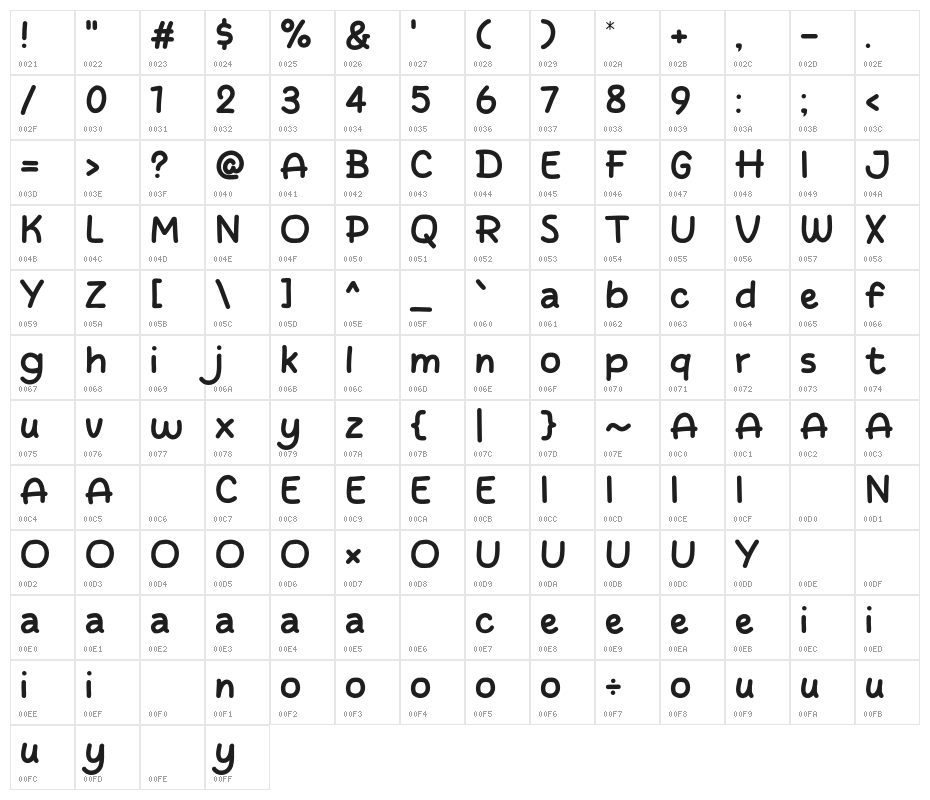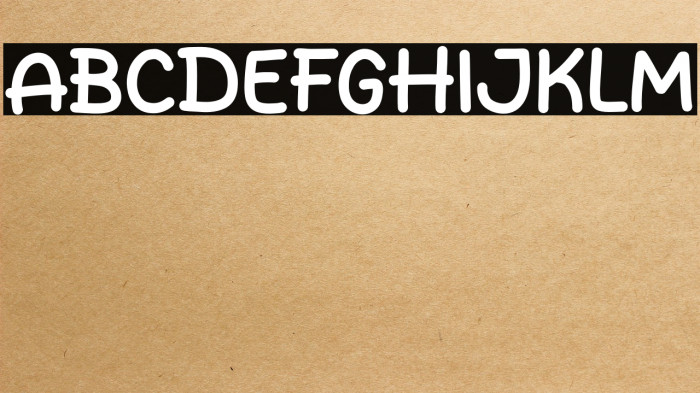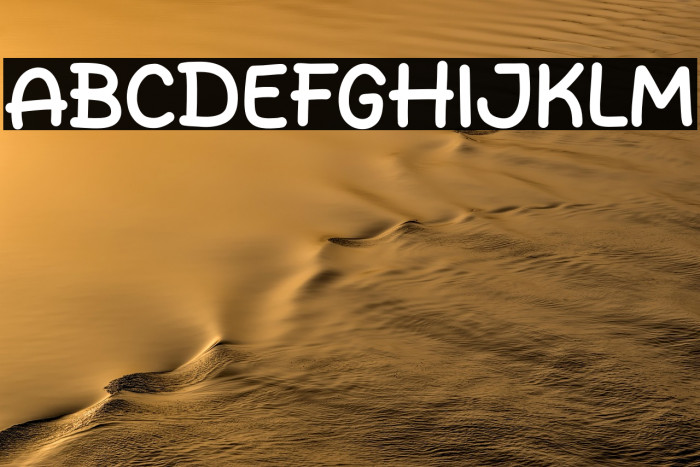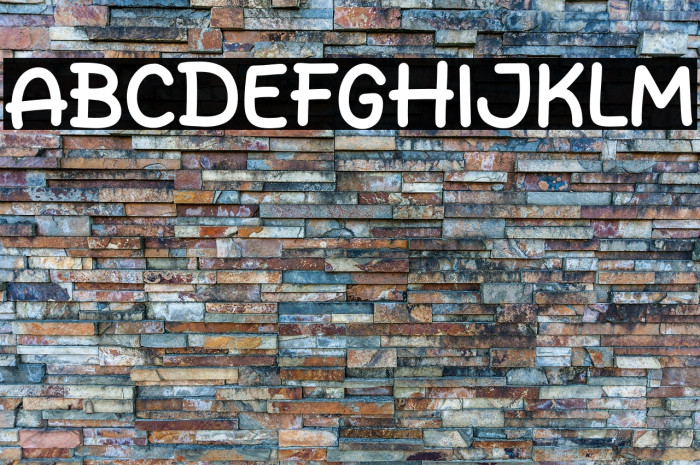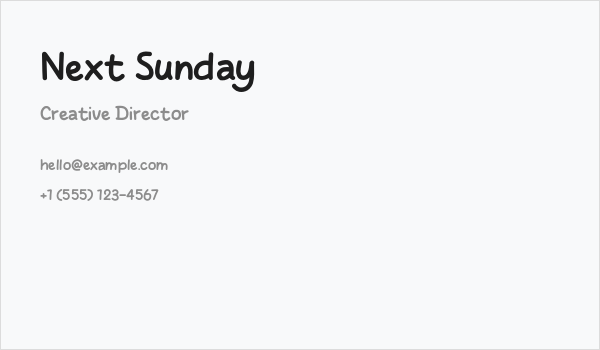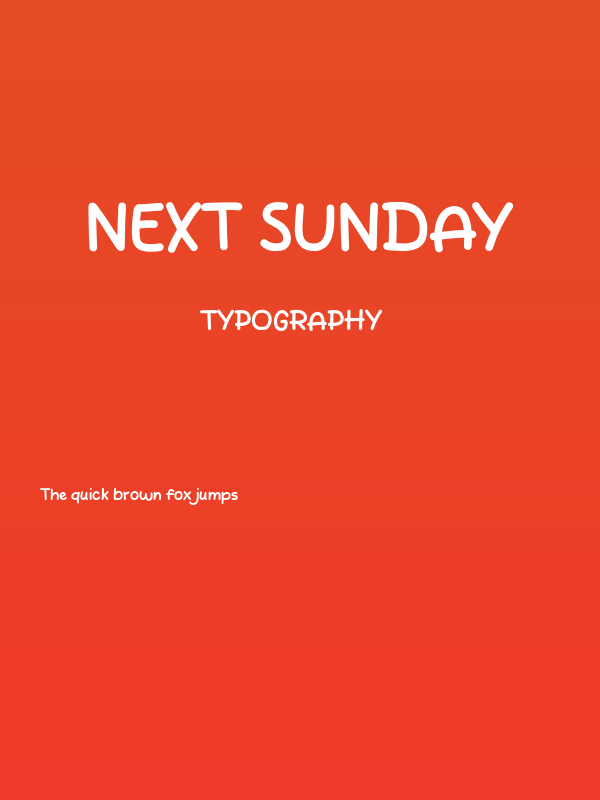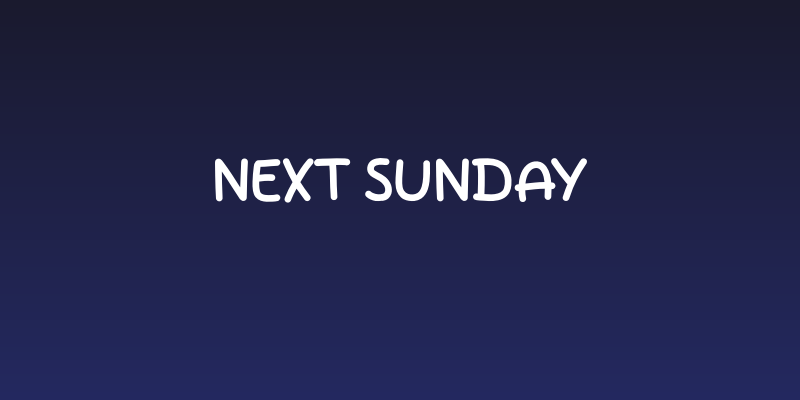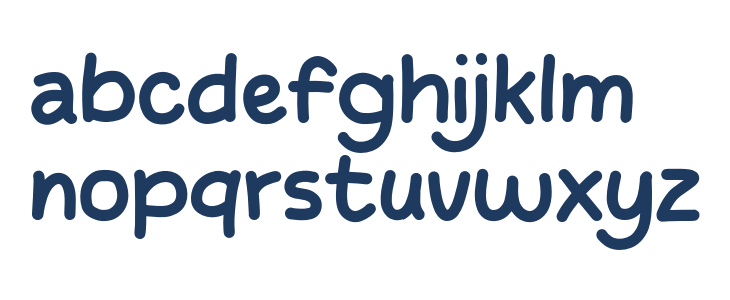
Next Sunday Font
Next Sunday Description
This playful and rounded font features a handwritten style that exudes a casual and friendly vibe. Each character is crafted with smooth curves and a consistent stroke width, giving it a cohesive and approachable appearance. The uppercase letters are bold and slightly wider, while the lowercase letters maintain a uniform height, enhancing readability. Numbers and special characters follow the same design principles, ensuring a harmonious look across all text elements. This font's informal and whimsical nature makes it ideal for projects that aim to convey warmth and approachability.
| Overall Style | Casual |
| Use Case | Headlines, Logos, Informal Text |
| Proposed Projects | Ideal for children's books, greeting cards, playful branding, and casual invitations. |